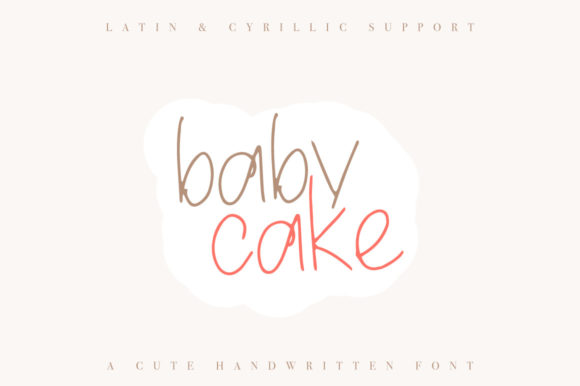
Take your typography to new heights with Baby Cake Font - the ultimate script font for your creative endeavors!
Dive into the world of Baby Cake, a sweet and playful script font that oozes charm and personality. With its crafty charm, Baby Cake breathes life into your designs, transforming them into captivating works of art. Whether you're a social media maven seeking captivating Instagram fonts or a DIY enthusiast craving elegant calligraphy scripts, Baby Cake is the ultimate font companion to elevate your projects.
Imagine your Instagram feed adorned with Baby Cake's enchanting curves, capturing the attention of your audience with every post. Its playful nature lends a touch of whimsy, while its crafty essence adds a personal touch that resonates with your followers. Let Baby Cake be your secret weapon to create a cohesive and visually stunning online presence that reflects your unique style.
Step into the world of DIY and let Baby Cake guide your creativity. Its versatility knows no bounds, whether you're crafting personalized greeting cards, transforming plain invitations into works of art, or adding a touch of charm to your home décor. Baby Cake effortlessly elevates your projects, adding a layer of sophistication and creativity that will leave a lasting impression.
With Baby Cake in your arsenal, unleash your inner artist and witness your creative visions come to life. It's the perfect font to add a touch of magic to your designs, captivating your audience with its playful spirit and intricate details. Embrace the beauty of Baby Cake and embark on a journey of creativity, one letter at a time.